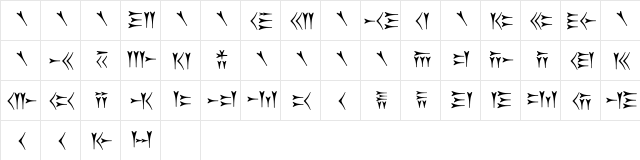
Old Persian Cuneiform Regular
Design Context for Old Persian Cuneiform Typeface
Old Persian Cuneiform is a composed and adaptable typeface that performs quietly and consistently across a wide range of design contexts.